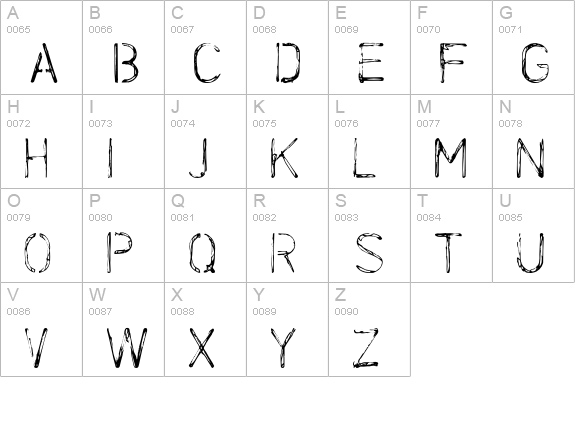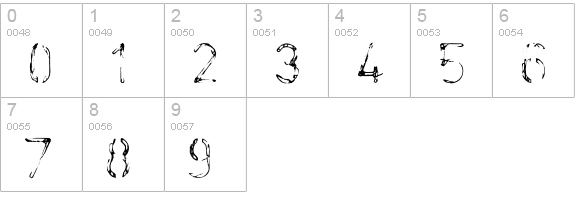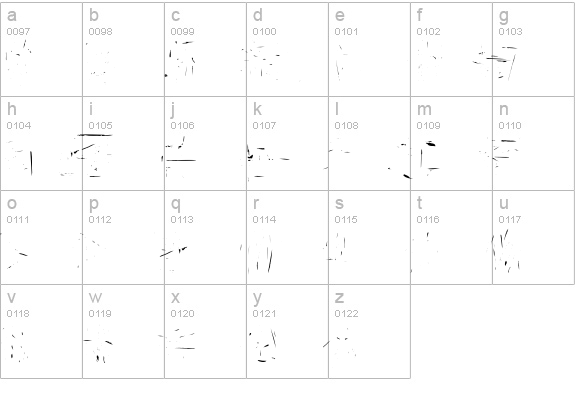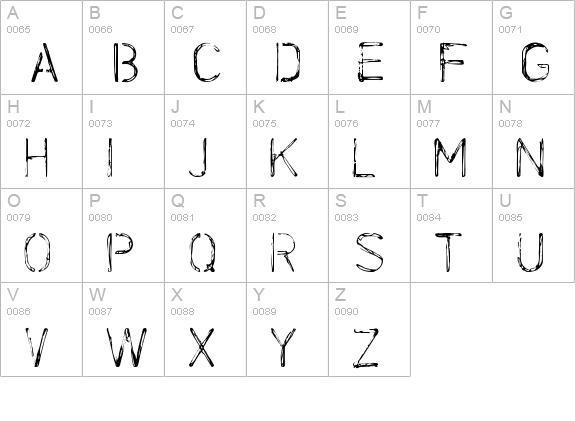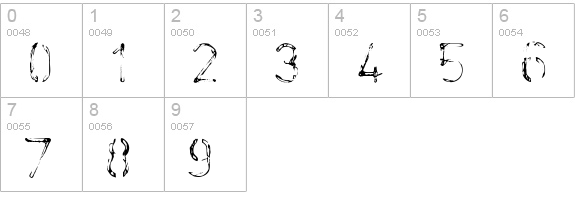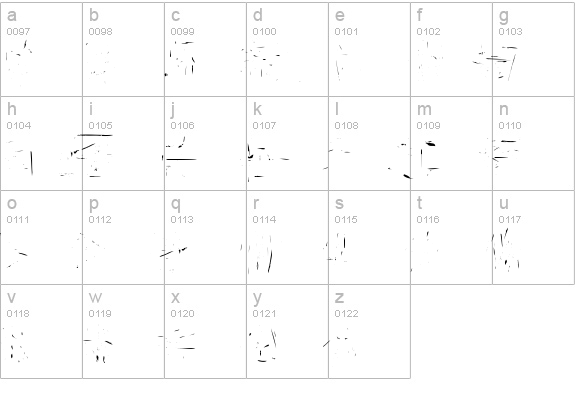
AlliedEngineLUBED Font Details
AlliedEngineLUBED font is a modern and stylish typeface that exudes sophistication and elegance. Its sleek lines and bold curves make it perfect for a wide range of design projects, from branding to editorial layouts. The unique letterforms of this font give it a distinctive and eye-catching appearance that is sure to make a statement. What sets AlliedEngineLUBED font apart is its versatility – it can be used for both headings and body text, making it a versatile choice for any designer. Whether you're working on a website, a poster, or a brochure, this font is sure to add a touch of class to your project. Best of all, AlliedEngineLUBED font is available for free download at FontsMarket.com. So why wait? Add this stunning font to your collection today and take your designs to the next level.